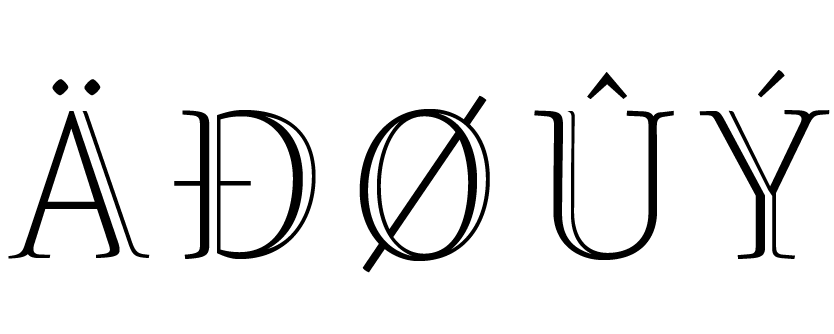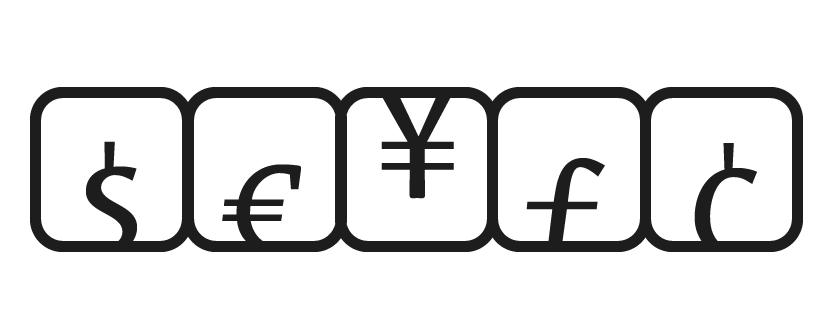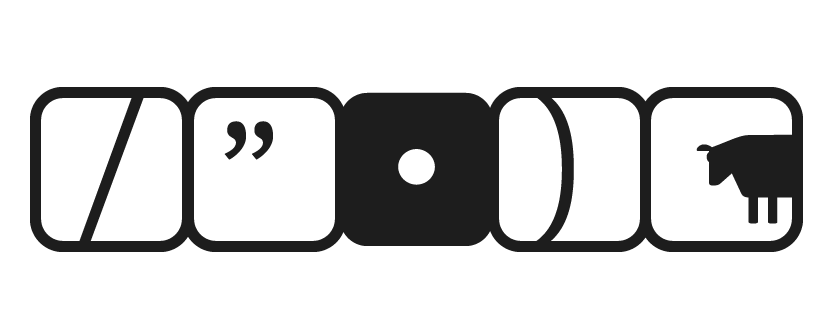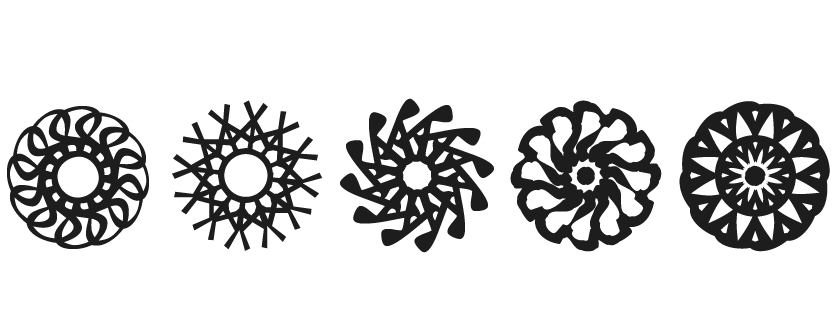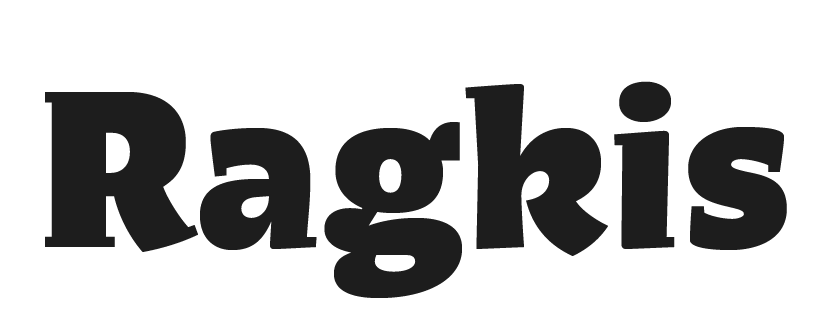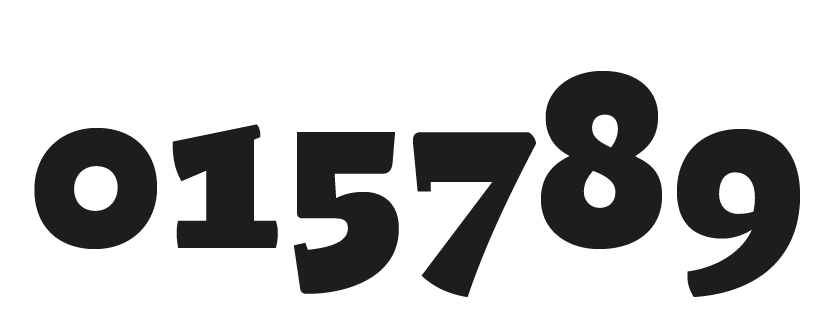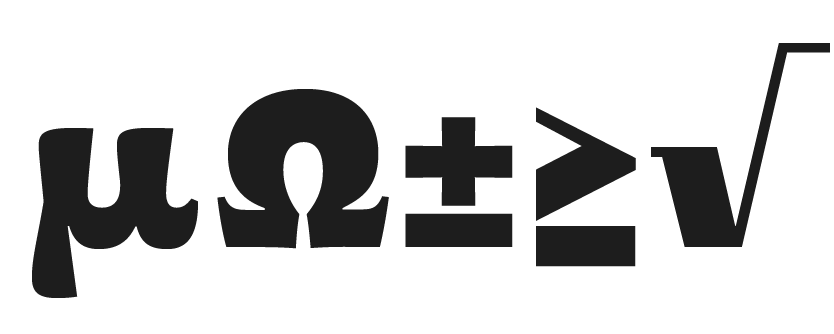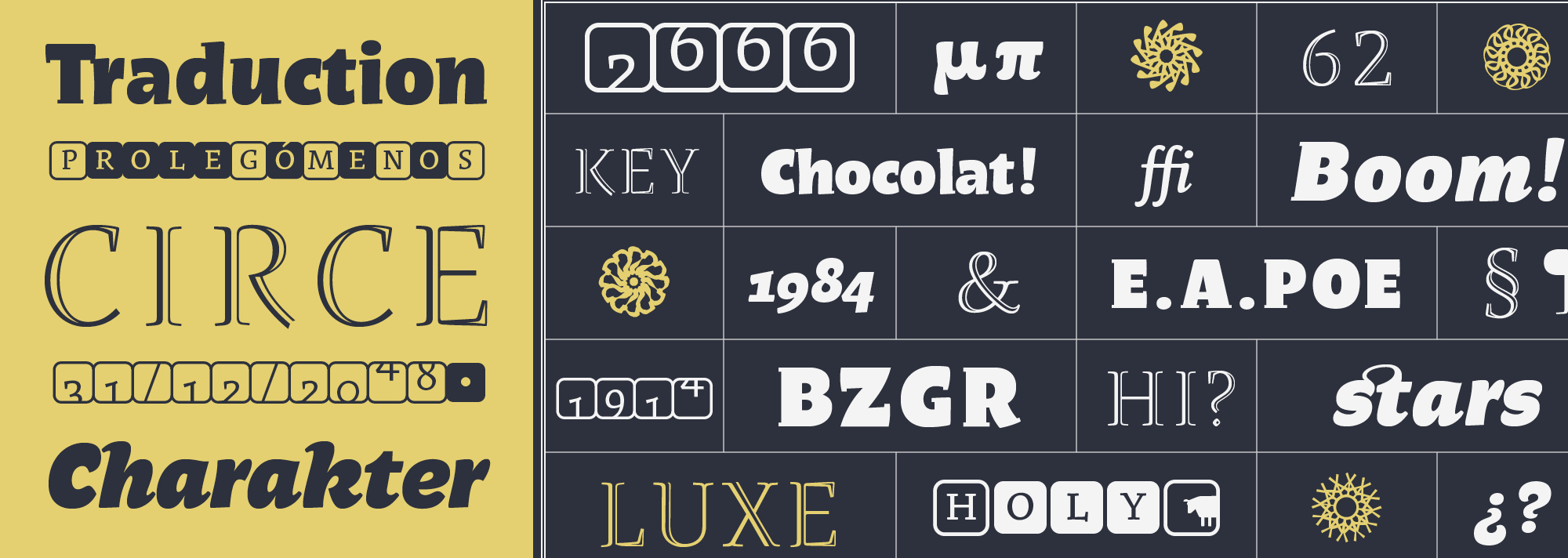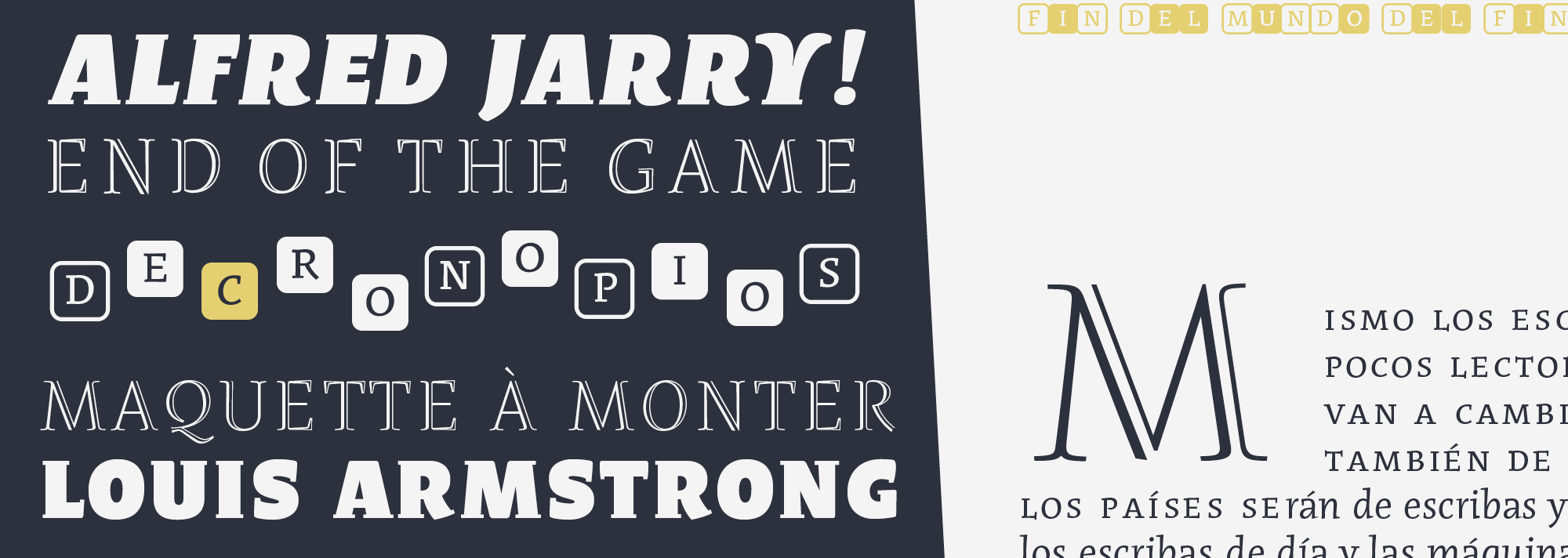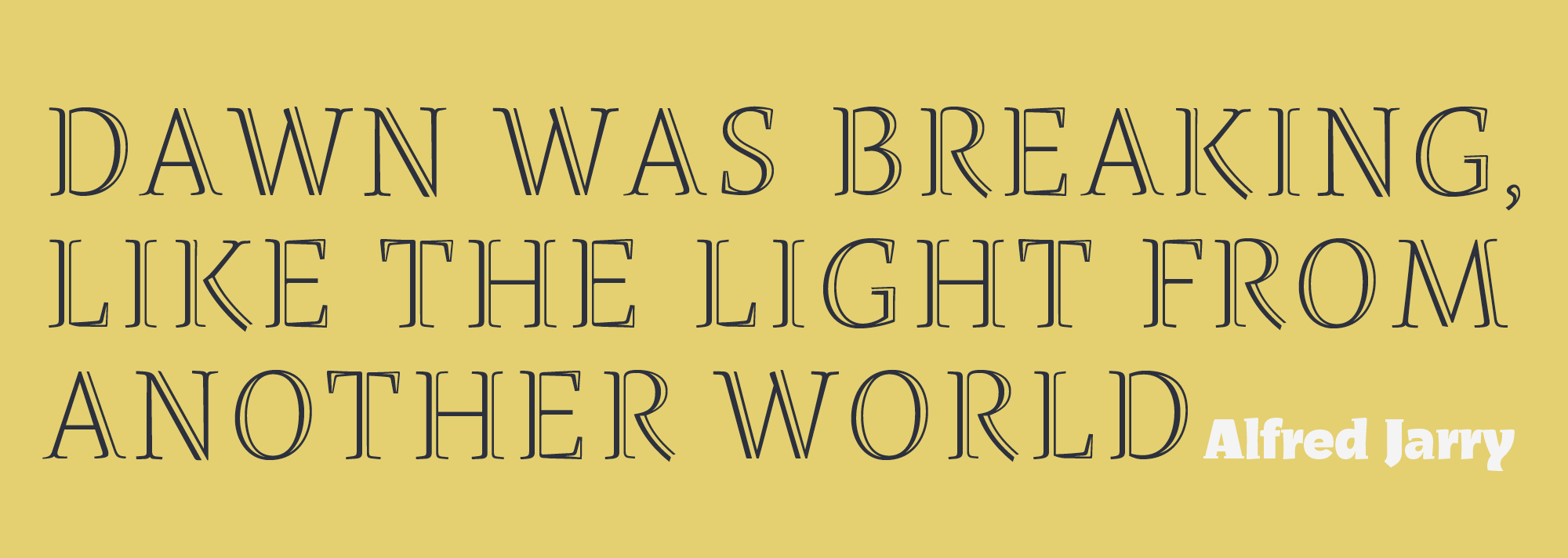
The display series
Rayuela Display is the companion series for more relaxed uses. Rayuela LUZ is an elegant openface with its stroke endings also open, which gives it a half-Tuscan serif look. Rayuela Miscelánea is a fancy scrabble-like font with 'jumping' figures just as in a hopscotch, and with contemporary fleurons allocated in the caps. Finally Rayuela Chocolate is the ultra-black set in roman and cursive.
Rayuela Display
Designed by Alejandro Lo Celso.
Features & Specials
Basic Latin
standard ligatures
monetaries
lining figures
fractions
punctuation
b/w cubes (miscelanea)
hopscotch figures
ball figures
monetaries
punctuation
fleurons
fresh design (Chocolate)
oldstyle figures
basic math
flowing cursive
standard ligatures
basic monetaries